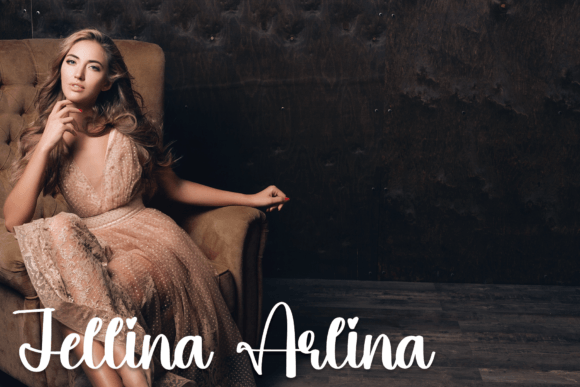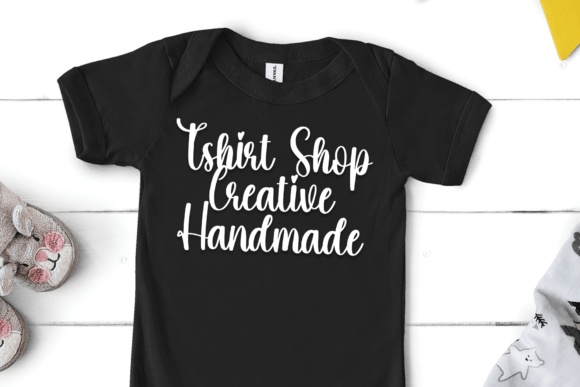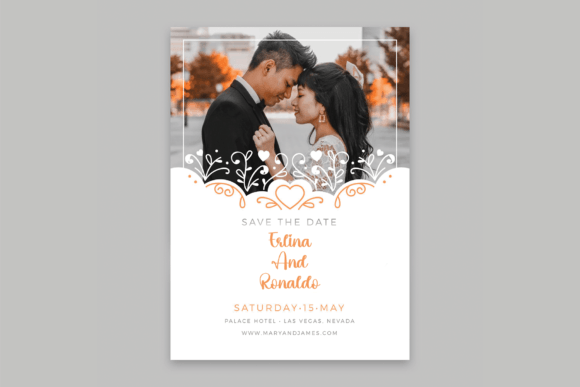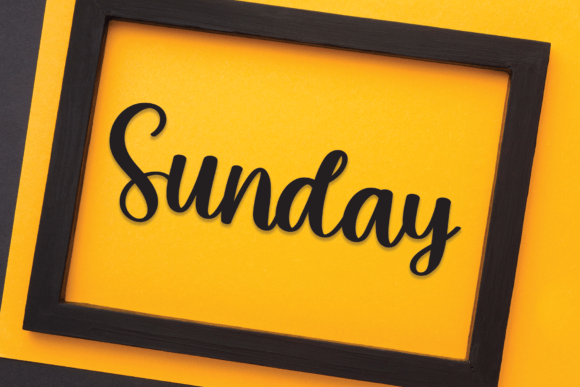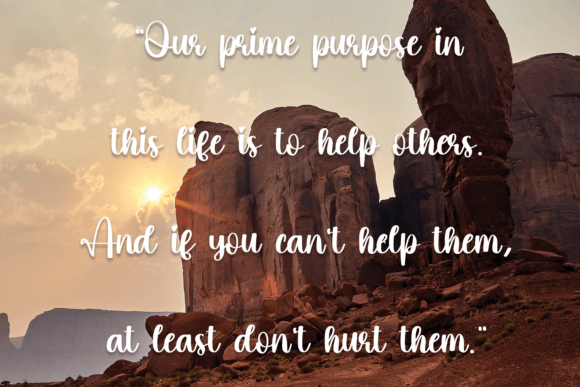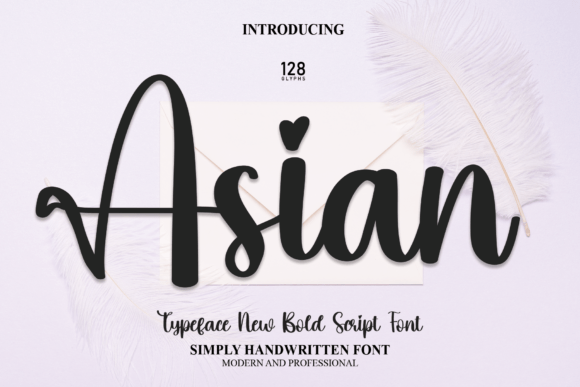
Handwritten Elegance: The Rise of Asian Font
Have you ever stumbled upon a beautifully designed invitation or a stunning logo that instantly captured your attention? For designers, those ‘aha’ moments are what drive creativity and inspire new ideas. As I sat in my studio, sipping a cup of coffee and brainstorming for a new project, I couldn’t help but feel the urge to experiment with something unique. And that’s when I discovered the charm of Asian Font.
Asian Font is a latest style of lettering that exudes a sense of handwritten elegance, making it perfect for various design projects. From wall displays to wedding invitations, social media posts to product packaging, this font is a versatile gem that can elevate any design. For designers, it’s a valuable asset that can add a personal touch to their work, making it stand out in a crowded market.
Key Features of Asian Font
- Unique Characteristics: Asian Font features a unique blend of traditional and modern design elements, with intricate details and ornaments that reflect the rich cultural heritage of Asia.
Asian Font Review
When I first saw the Asian Font, I was struck by its elegant and refined aesthetic ✨. The intricate details and delicate strokes give it a sense of sophistication that is perfect for creating a high-end or cultural feel in your design. The font also includes a wide range of languages and characters, making it a great choice for any project that requires multilingual support.
One of the standout features of the Asian Font is its excellent legibility ✨. The font is well-designed and easy to read, even at smaller font sizes. This makes it a great choice for body text or any other situation where readability is crucial.
- ⚠️ The font may not be as versatile as some other fonts, and may not be suitable for modern or tech-related projects.
Overall, the Asian Font is a solid choice for any project that requires a high-end or cultural feel. While it may have some limitations, its elegant design and excellent legibility make it a great addition to any designer’s toolkit. With a little practice and patience, you can get great results with this font and elevate your designs to the next level.